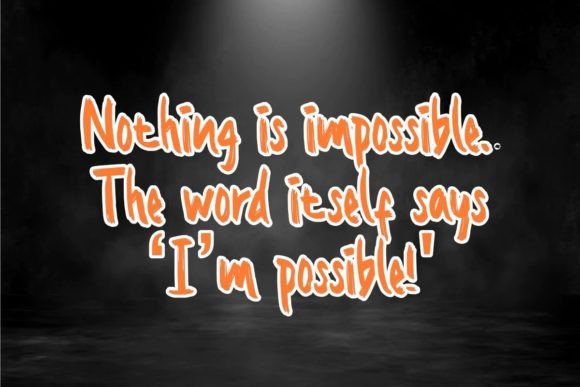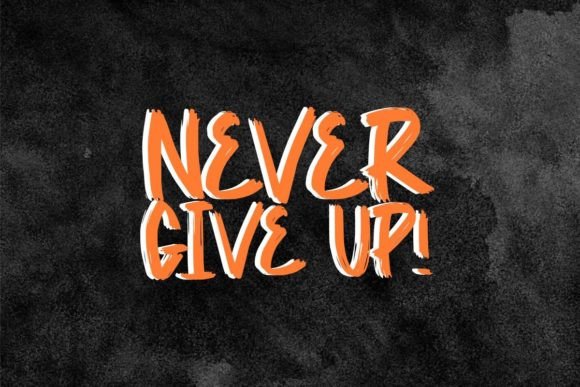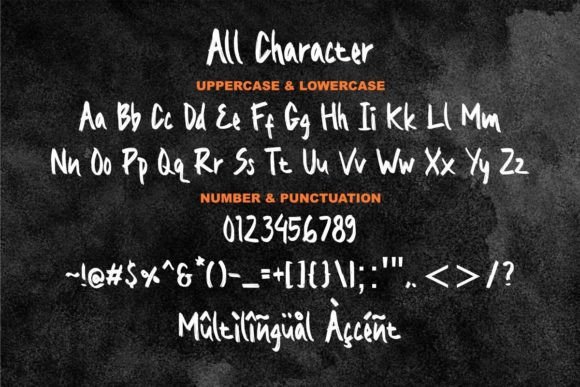
Billyon Font
Billyon is a display font both striking and alluring. Carefully brushed, it is suitable for different crafts and projects such as printing on shirts, wall art, posters, and much more.